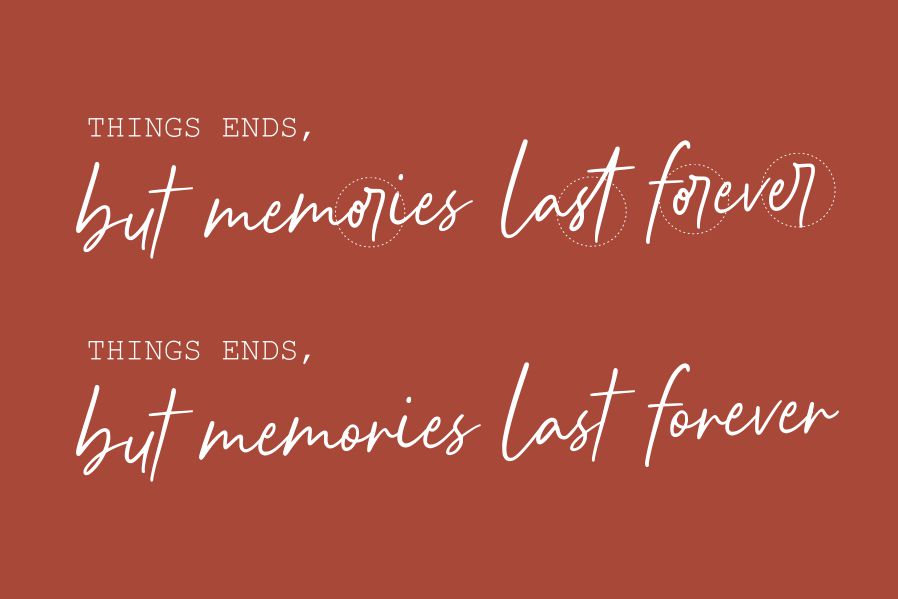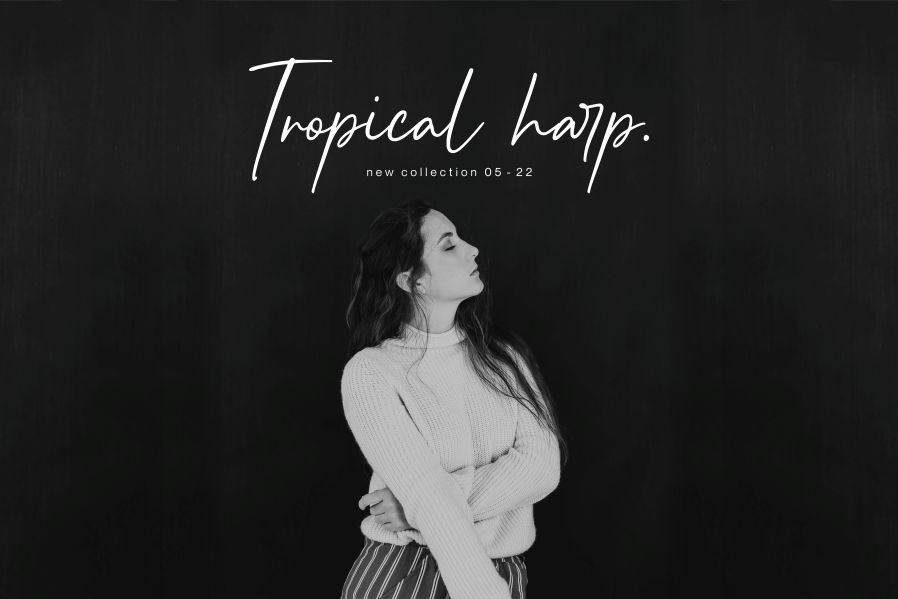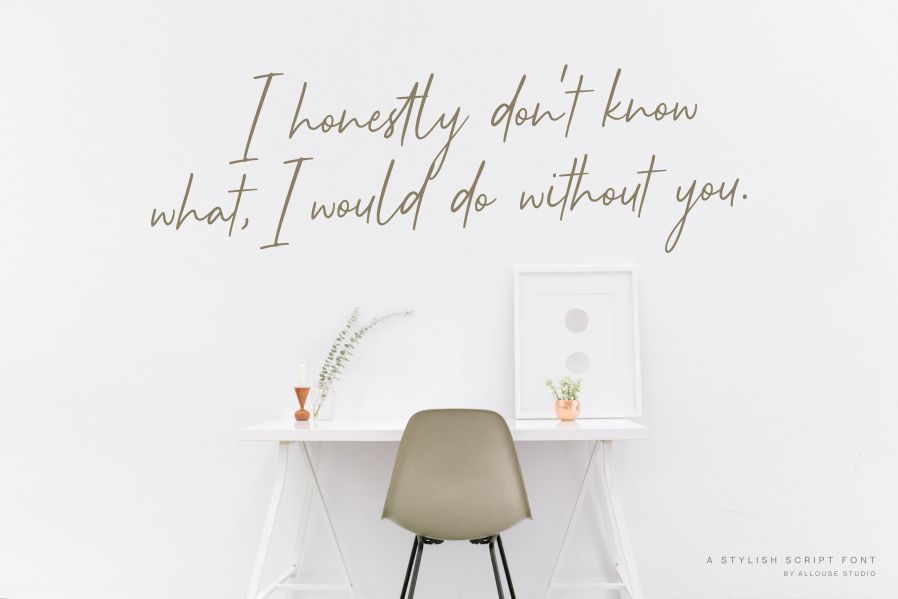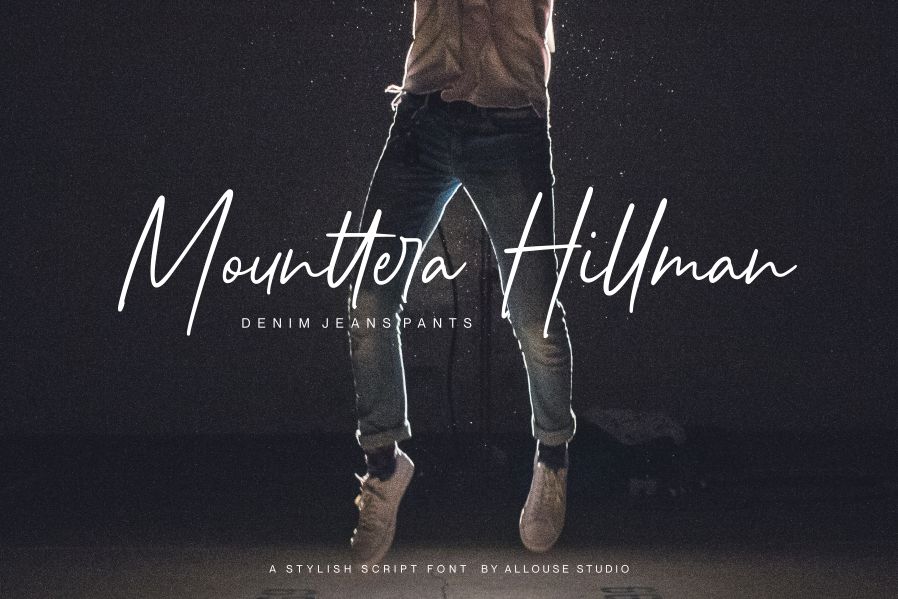
Carera Bernadia Font
Carera Bernadia Script Font
This is A Handwritten Script Font. Carera Bernadia is perfect for product packaging, branding project, megazine, social media, wedding, or just used to express words above the background.